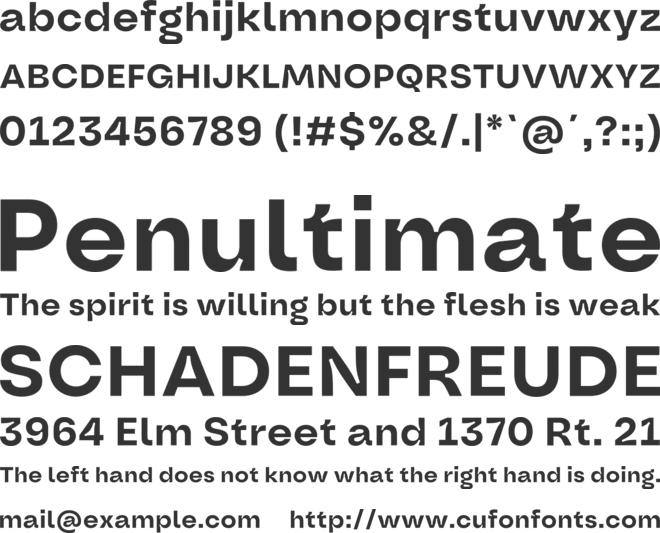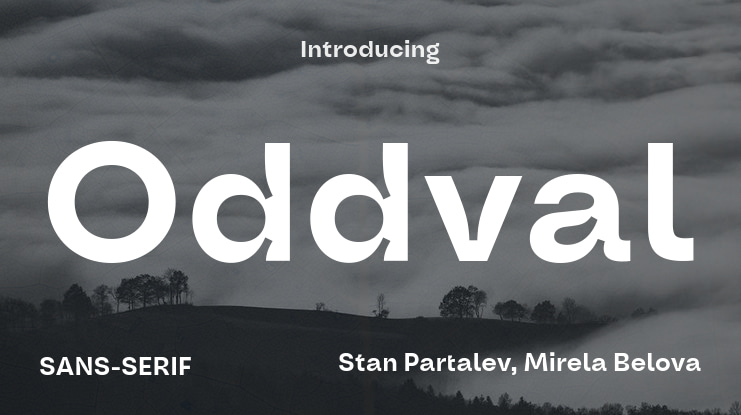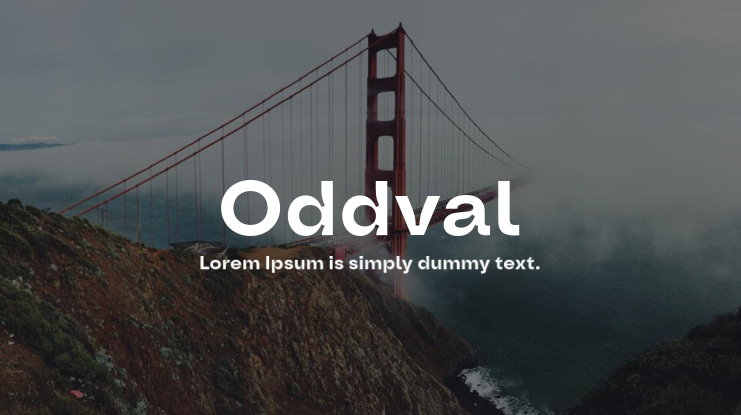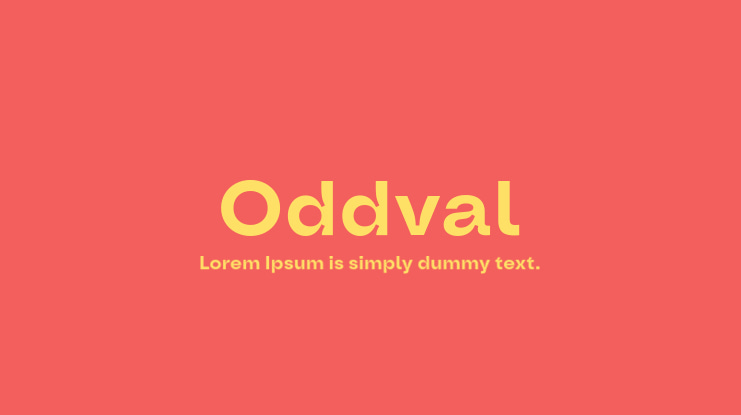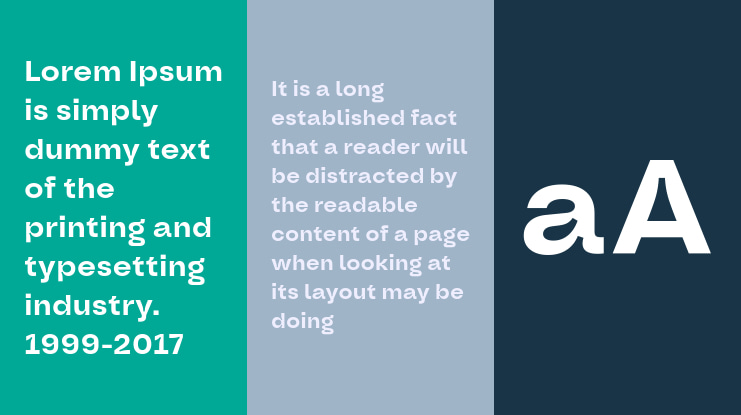
Oddval Font Family
Stan Partalev, Mirela Belova
Get Oddval here:https://www.myfonts.com/collections/oddval-font-type-forwardOddval is a modern and unique geometric sans-serif font with ink traps and a masculine tone. It's great for creative projects related to innovation and has a strong presence due to its high x-height and minimal stroke contrast. There are 18 fonts in total, with 9 weights and corresponding italics. It supports over 220 languages and has advanced typographic features. Oddval works well for both print and on-screen media and is ideal for headlines, logos, and short paragraphs.